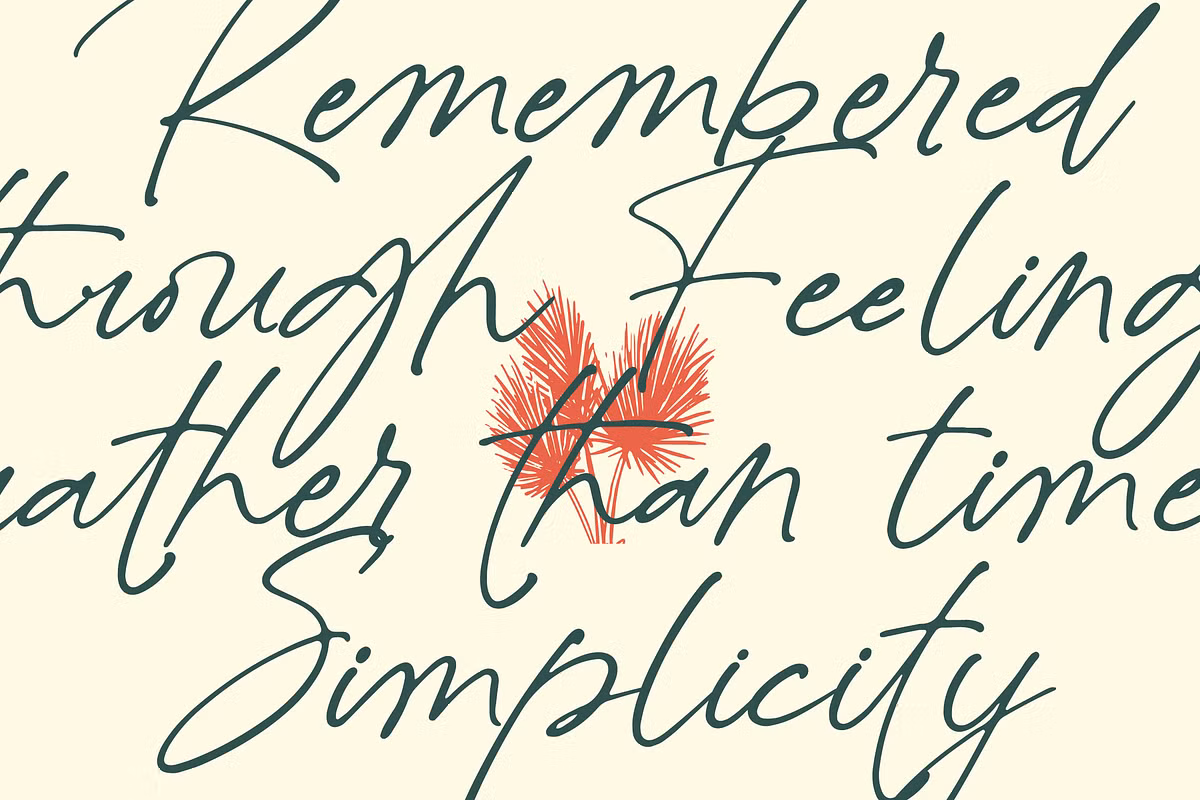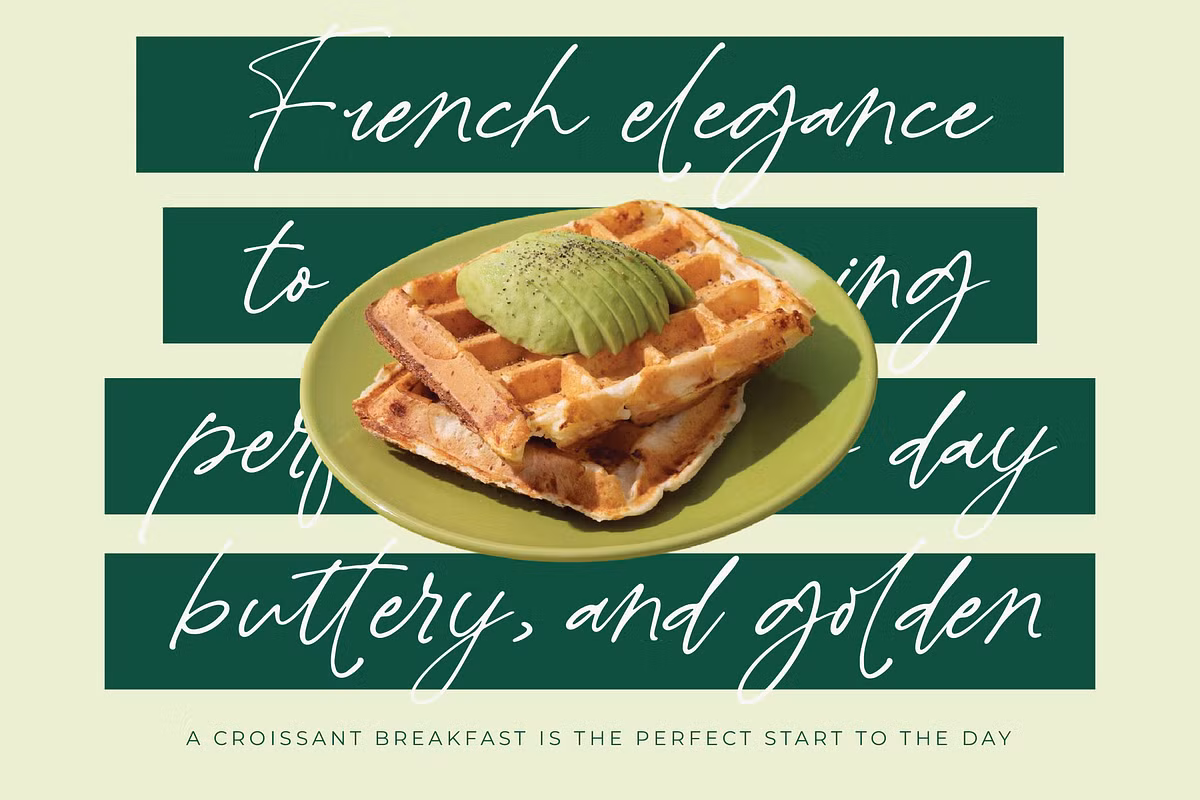
Peglastone Handwritten Ink Font: Stylish Typeface for Modern Design
Peglastone is a beautifully crafted handwritten font that brings a sense of sophistication to modern design. Its gentle, flowing lines and smooth strokes create a natural rhythm that’s pleasing to the eye. If you’re looking to add a personal touch to your work without sacrificing professionalism, Peglastone is an excellent choice. With its elegant style, this font is perfect for projects that require a balance of personality and polish.
Whether you’re working on a creative project or a formal document, Peglastone’s unique typographic feel is sure to make a lasting impression. Its delicate charm and refined appearance make it an ideal option for those seeking to elevate their design with a touch of handwritten elegance.
Design Style of Peglastone
Peglastone’s design is all about simplicity and ease. It has a really natural, handwritten look that feels authentic. Every letter is carefully made to keep the warmth and personality of real handwriting. The gentle curves that look like ink texture add to its visual appeal, making it really stand out in different uses.
The clean lines and smooth flow of Peglastone give it a unique feel that’s perfect for many applications. Overall, Peglastone’s design is a great mix of simplicity, personality, and visual appeal. One of the standout features of Peglastone is its 98 ligatures and 27 alternate characters, which provide a wealth of options for personalization.
Character Sets and Features
Peglastone has a wide range of characters, including uppercase and lowercase letters, numbers, and punctuation marks that meet OpenType standards. It also supports characters from many languages, which means you can create designs that can be used all over the world without losing their style. This makes it a great choice for designers who want to reach a global audience.
- Uppercase and Lowercase: Full alphabet available in both cases.
- Numerals: A complete set of numbers for comprehensive use.
- Punctuations: Includes various punctuation marks for complete sentence construction.
- Accents: Multilingual characters make this font accessible for diverse languages.
- Ligatures and Alternates: A total of 98 ligatures and 27 alternate characters enhance the typographic experience.
Use Cases for Peglastone
Peglastone is a really versatile font that can be used in many different projects. It’s great for a lot of things. Here are some of the best ways to use it:
- Branding: Whether you’re designing a logo, business card, or any other branding material, Peglastone can add a personal touch that reflects your brand’s identity.
- Personal Signatures: The font’s authentic handwritten style makes it ideal for creating personal signatures that stand out.
- Wedding Designs: From invitations to thank-you cards, Peglastone adds a romantic flair to any wedding-related design.
- Lifestyle Content: Perfect for blogs and social media posts, Peglastone enhances the visual appeal of lifestyle content, making it more engaging.
- Product Packaging: Use Peglastone to create eye-catching product labels that convey warmth and authenticity.
Pairing Suggestions for Peglastone
When it comes to pairing fonts, Peglastone works exceptionally well with a variety of typefaces. For a balanced design, consider combining it with:
- Serif Fonts: Pair Peglastone with a classic serif font like Times New Roman or Garamond for a sophisticated look.
- Sans-Serif Fonts: For a sleek and contemporary look, opt for a simple sans-serif font like Helvetica or Arial, which will add a touch of minimalism to your design.
- Display Fonts: For a playful design, consider pairing Peglastone with a bold display font that captures attention and complements its handwritten style.
Experimenting with different pairings can elevate your design and ensure that Peglastone shines in any context.
Peglastone is more than just a font – it’s a stylish, handwritten ink typeface that adds a touch of modern elegance to any design project. What makes it special is its unique character set and the fact that it can be used in many different ways.
It also pairs really well with other fonts, which makes it a great choice for creatives who want to add a personal touch to their work. Whether you’re creating a brand, designing wedding invitations, or working on lifestyle content, Peglastone is a great font to use if you want to achieve a professional yet warm look.